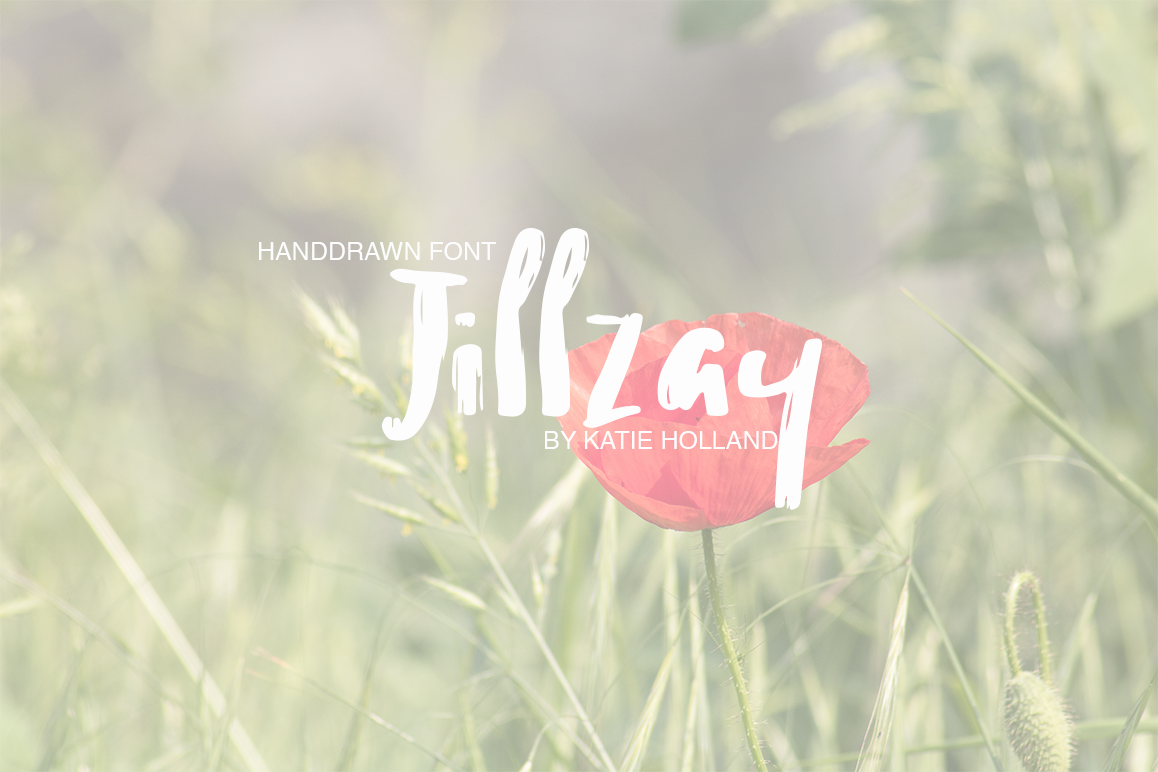
Jillzay
JILLZAY- a new fresh handmade calligraphy font.
Very suitable for greeting cards, branding materials, business cards, quotes, posters, and more!This font are perfect for wedding postcard. Or you can create perfect and unique design of your logo, blog, stationery, marketing, magazines and more :)